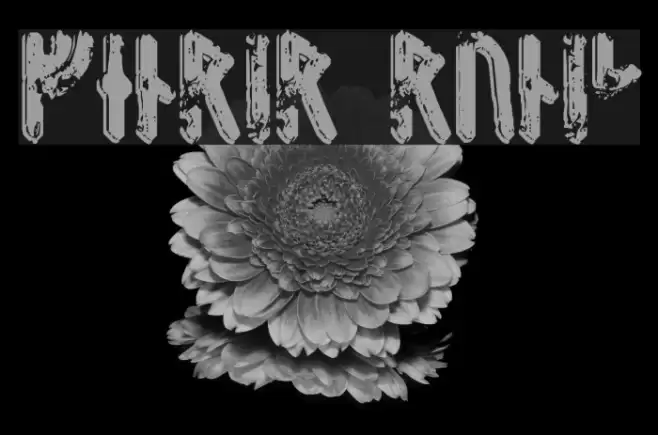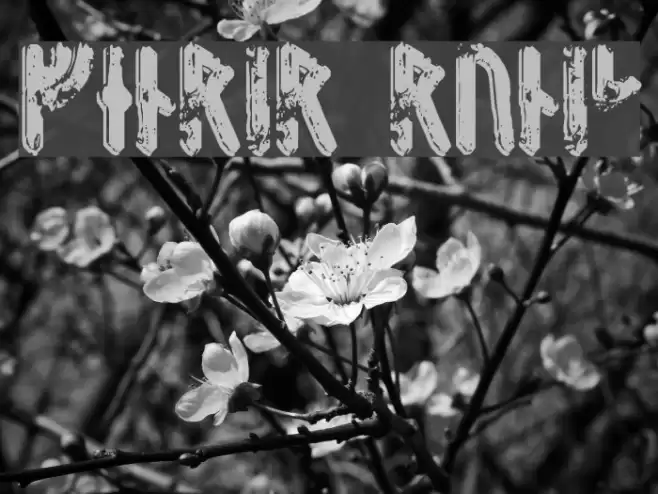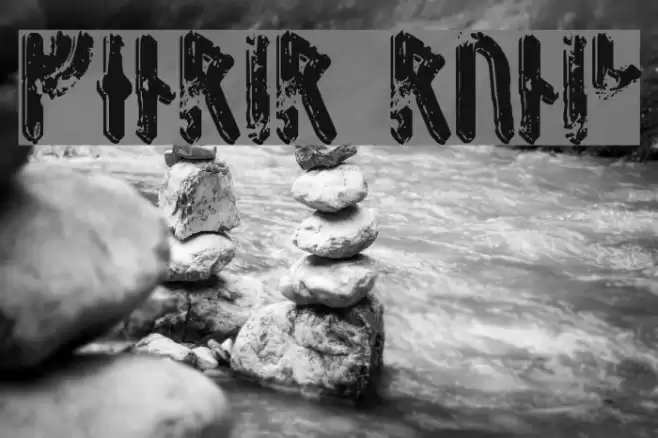
Fenrir Runic Font
Fenrir Runic Description
This font features a rugged, distressed style reminiscent of ancient runic inscriptions. Each character is designed with a rough, weathered texture, giving it an authentic, historical feel. The strokes are bold and uneven, with a hand-carved appearance that suggests age and mystery. The design incorporates sharp angles and irregular edges, enhancing its archaic aesthetic. This font is perfect for projects that require a touch of the mythical or the mystical, evoking a sense of ancient lore and legend.
A rugged, distressed font inspired by ancient runic inscriptions from Uncategorized fonts.
- Proposed Projects: Ideal for fantasy-themed designs, game titles, movie posters, and historical recreations.
- Overall Style: Vintage
- Use Case: Logos, Headlines, Thematic Posters